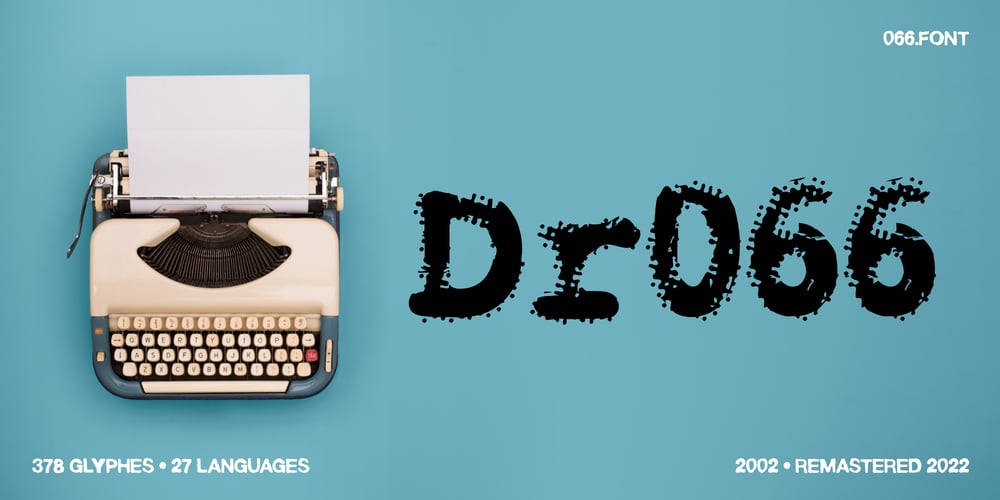
Dr066 Font Family was designed by Piotr Wozniak and published by 066.FONT. Dr066 contains 1 styles and family package options. Dr066 is a display font that simulates the appearance of typewritten text. Each letter in Dr066 has been carefully designed to resemble the effect you get with a typewriter. This effect adds a sense of nostalgia to the text, as if it were from a bygone era, adding an authentic charm to the designs. Dr066 retains its varied and extravagant style, giving the text a lightness and a certain nonchalance. Its distinctive and daring letters make it ideal for projects that strive for a unique look.